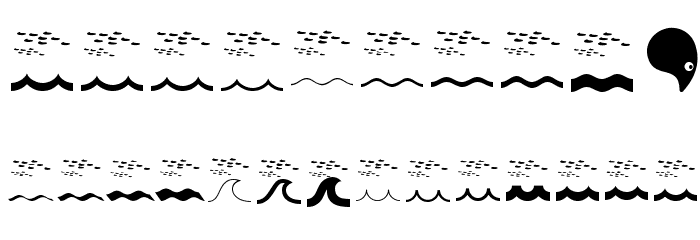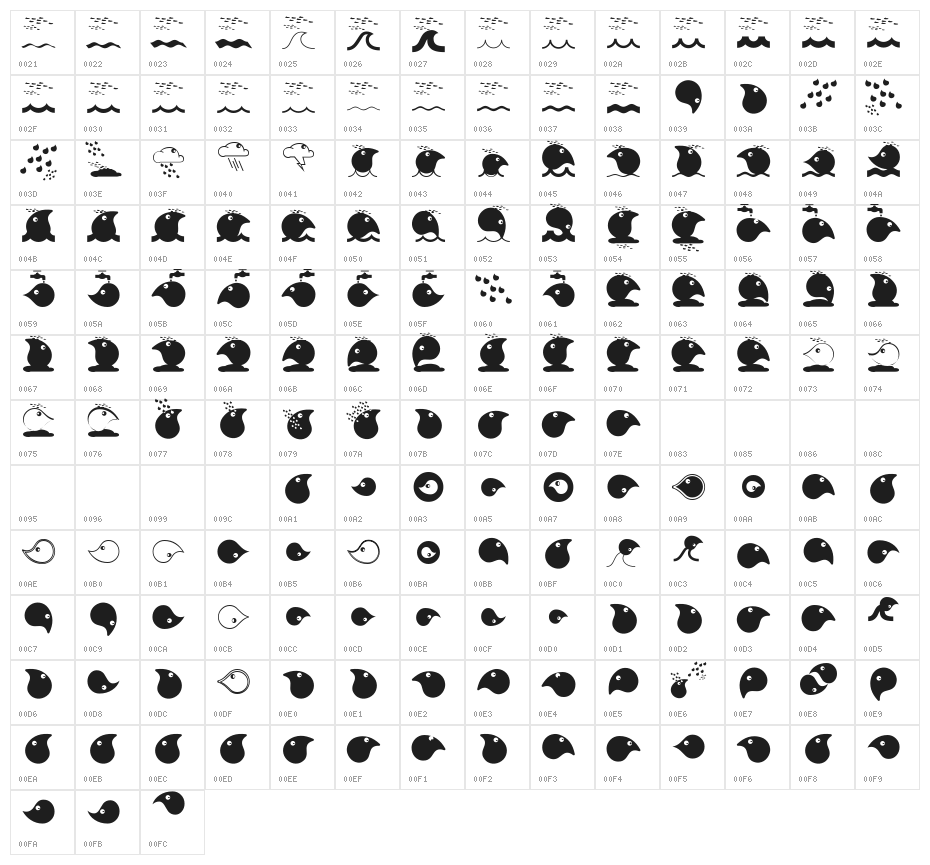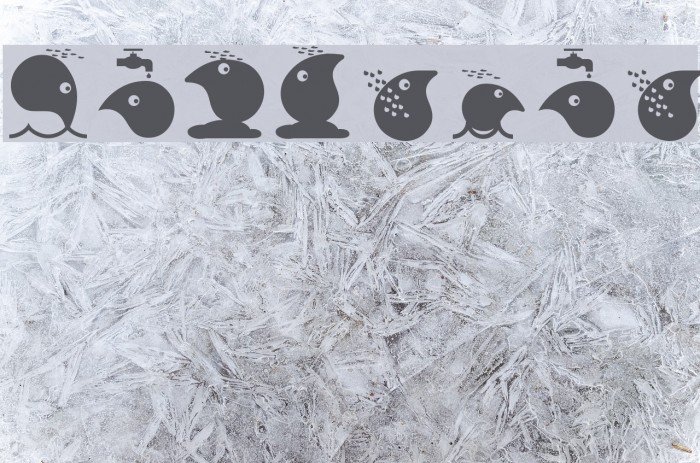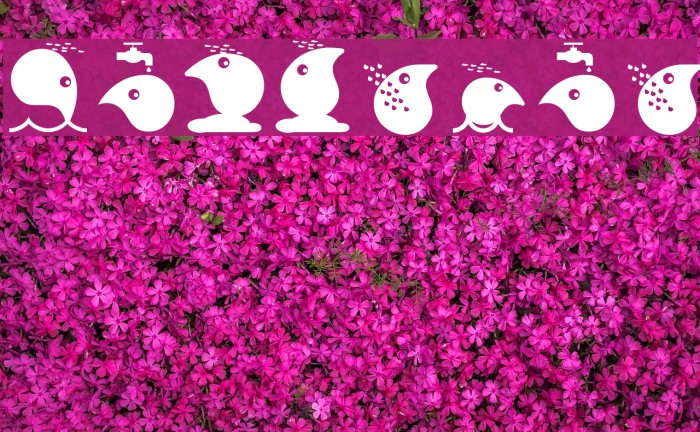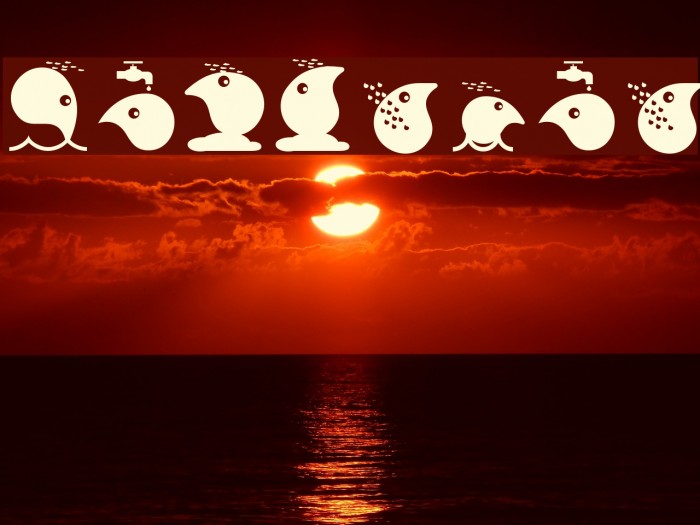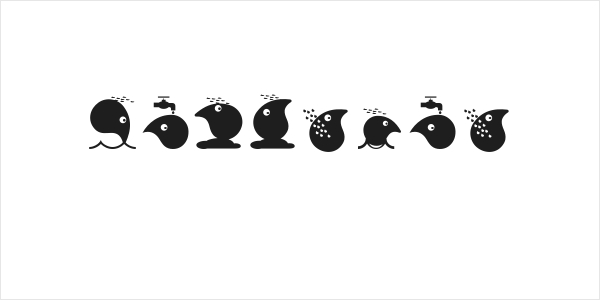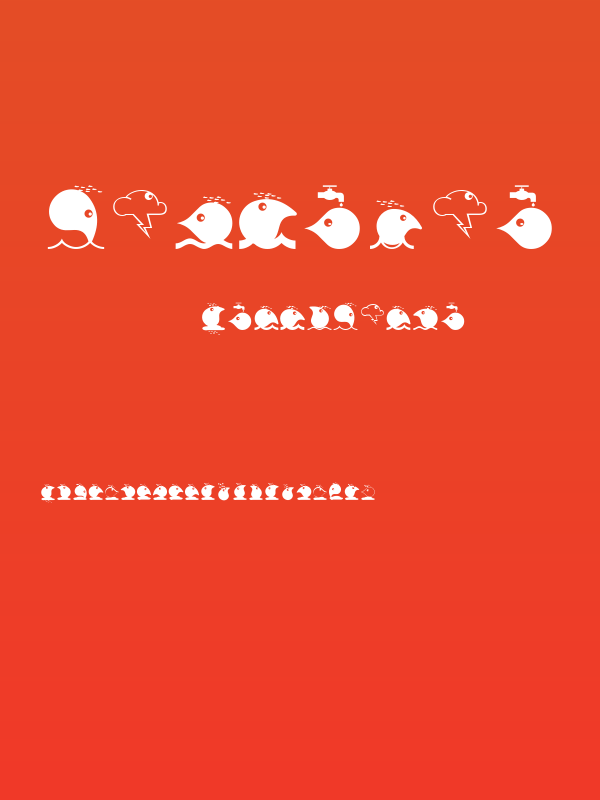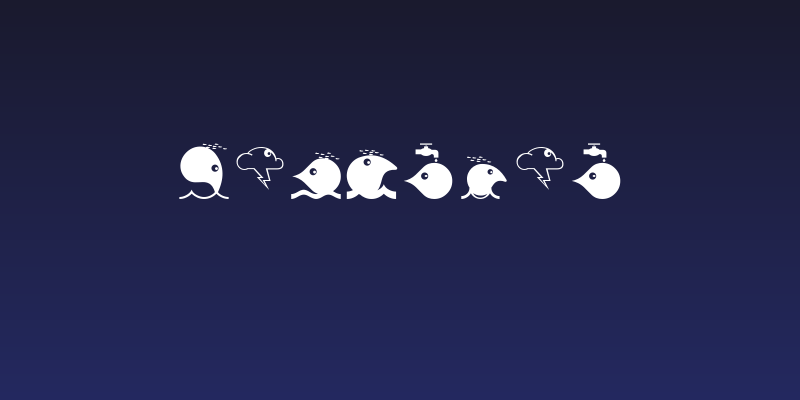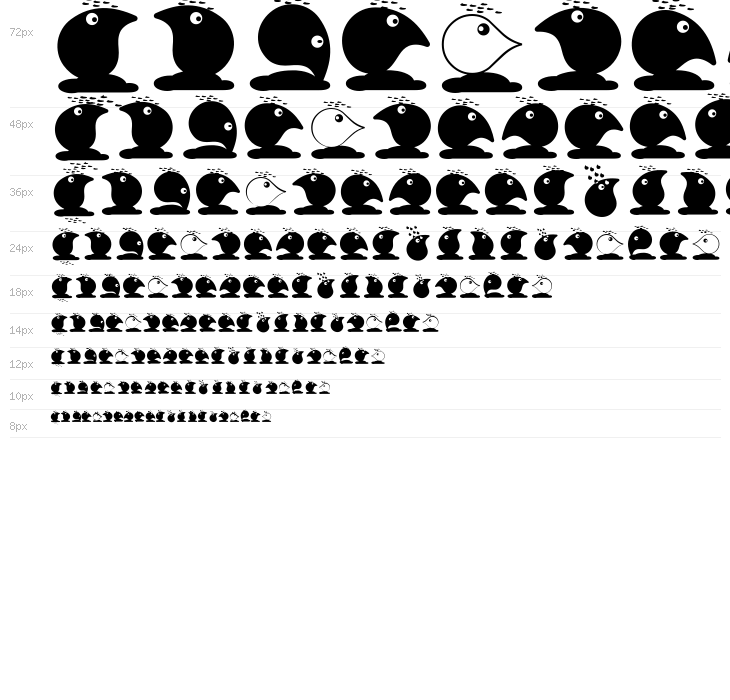
RainyDay Font
RainyDay Description
This font is a whimsical and playful design, featuring characters that resemble cartoonish birds with various expressions and accessories. Each letter is represented by a unique bird-like figure, complete with eyes and beaks, creating a lively and animated appearance. The numbers and special characters follow the same theme, incorporating elements like waves and raindrops, enhancing the overall playful and imaginative style. The design is bold and eye-catching, making it suitable for projects that require a fun and engaging visual element.
| Overall Style | Whimsical, Playful, Cartoonish |
| Use Case | Logos, Posters, Children's Books |